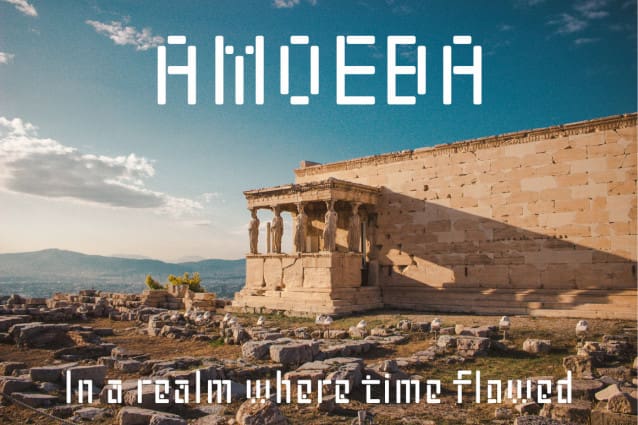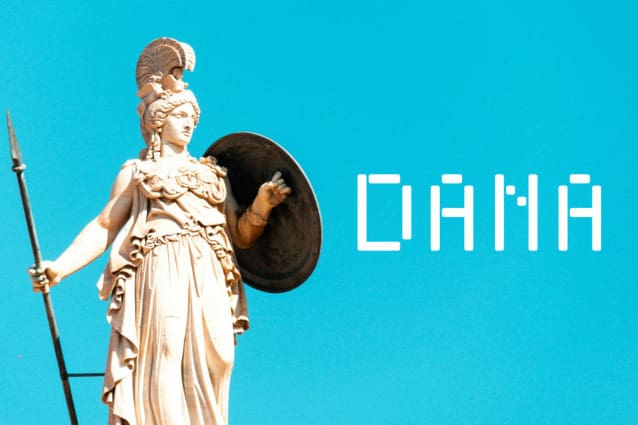
Zerpixl Volt Typeface
Zerpixl Volt Font is a futuristic font style with sophisticated, modern and minimalist allcaps characters. Its futuristic aesthetics bring a whole new dimension to your designs, making them stand out. Whether you’re working on a website, poster, logo, or any other project, this font adds that extra touch of innovation and sophistication.